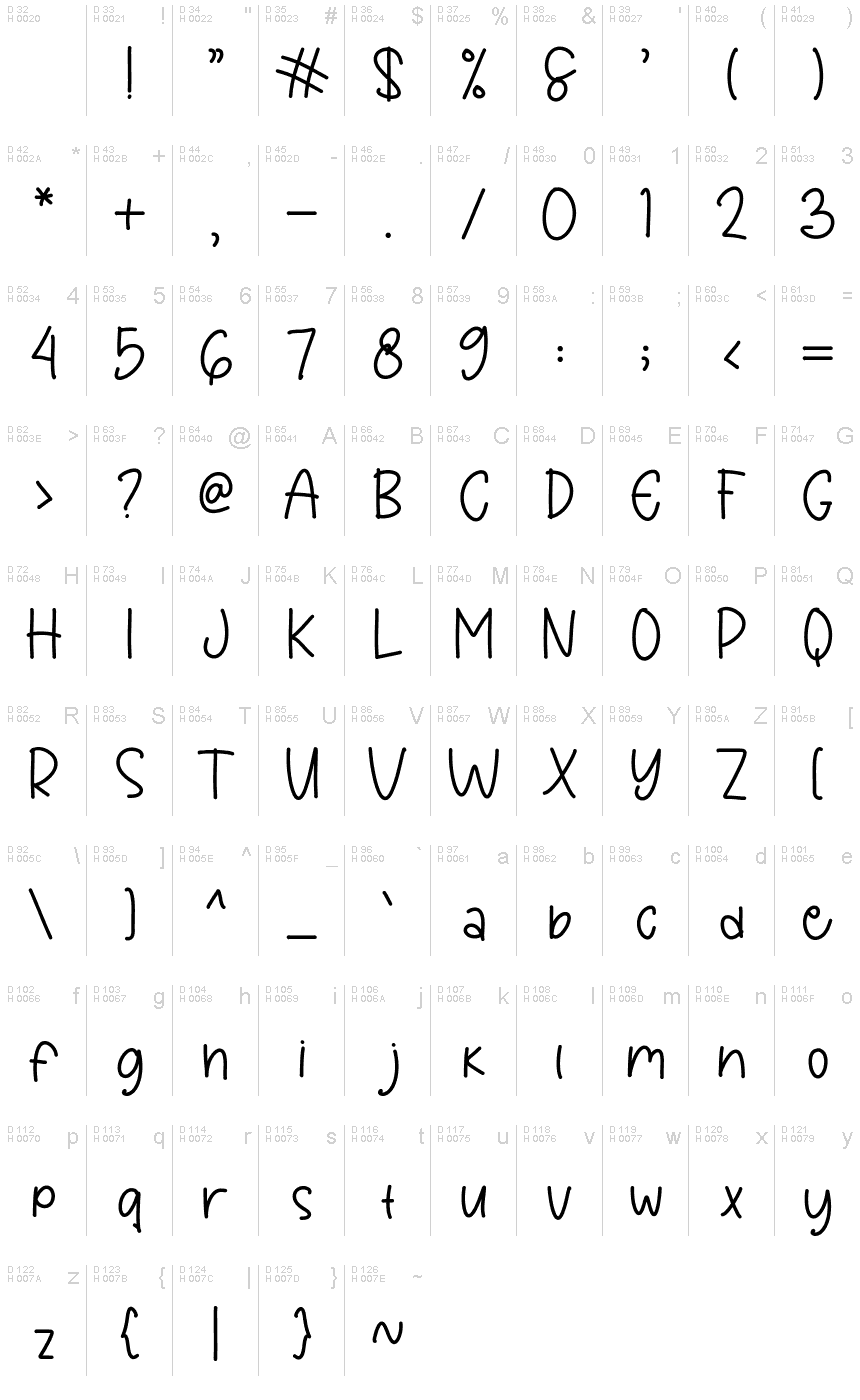
Handmade Notes
Handmade Notes, designed by Erlina Graphic, is a handwritten font that exudes charm and personality. Its semi-light weight lends an airy, unburdened quality to the script, making it appear as though each character has been carefully penned with a fine ink brush. The natural and casual flow of Handmade Notes captures the essence of personal touch in digital form, making it an excellent choice for projects that require a sense of intimacy and warmth.
With its handwritten style, Handmade Notes invites a creative flair to various applications such as invitations, greeting cards, branding materials, and more. Its aesthetic appeal lies in the balance between legibility and artistic expression; each letter showcases subtle variations just like genuine handwriting would. This makes Handmade Notes particularly suitable for designs aiming to establish a connection with the viewer through authenticity and individuality.
Whether you're designing for print or digital media, Handmade Notes offers versatility while adding a personal note to your creative project—perfect for when you want your message to feel handcrafted and sincere.